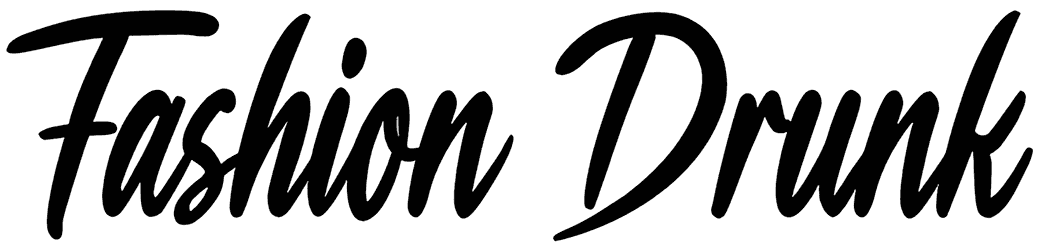
Fashion Drunk Font
Fashion Drunk is a hand-drawn script font that is informal, plus it conveys a friendly and natural feel. Utilize this font for one cursive typography that is elegant, playful, and looks stylish. It offers fashionable cha…
Fashion Drunk is a hand-drawn script font that is informal, plus it conveys a friendly and natural feel. Utilize this font for one cursive typography that is elegant, playful, and looks stylish. It offers fashionable characters that are imaginative and stunning.
Fashion Drunk font and its full set of letterforms are perfect for all your projects, and they can be included in books, flyers, branding, invitations, weddings, headlines, and more.